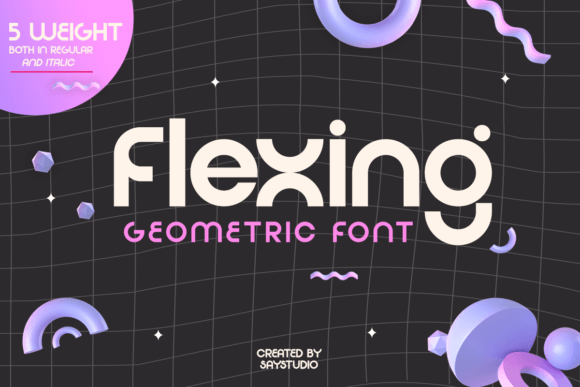
The Perfect Blend of Simplicity and Sophistication: Flexing Font
Have you ever stared at a blank canvas, wondering how to bring your creative vision to life? That moment of pause, where the only thing that matters is the right font to set the tone for your project. For designers, this moment is crucial – it can make or break the entire aesthetic of a piece. That’s where Flexing Font comes in, a geometric sans serif family typeface that’s been making waves in the design world.
With its unique characters and 5 weights (both regular and italic), Flexing Font offers a clean and modern aesthetic that’s perfect for both text and display use. Whether you’re working on branding, advertising, packaging, or website design, this versatile font is sure to deliver. As a designer, you’ll appreciate the flexibility (pun intended) that Flexing Font provides, allowing you to add a touch of sophistication to any project.
Key Features of Flexing Font
- Size: The font family is available in 7 different weights, ranging from Thin to Black, providing flexibility for various design and typographic needs.
- Resolution: Flexing Font is designed for high-resolution displays, making it ideal for use in digital applications, including web, mobile, and desktop interfaces.
- Unique Characteristics: The font features a dynamic, flexible design that adapts to different line heights and font sizes, ensuring optimal readability and visual appeal.
- Language Support: Flexing Font supports a wide range of languages, including Latin, Cyrillic, and Greek scripts, making it suitable for global content and branding applications.
- Kerning and Ligatures: The font includes advanced kerning and ligature tables, ensuring precise spacing and letterform connections for improved readability and aesthetic appeal.
Flexing Font Review
Overall, I’m impressed with Flexing Font’s unique approach to typography. The font’s dynamic flexibility ✨ makes it perfect for designs that need a modern, edgy feel. The bold lines and angular shapes add a touch of sophistication, and the font’s adaptability to different screen sizes is seamless.
- Flexibility: The font’s ability to adjust to various screen sizes and devices is a major plus. It’s perfect for websites, apps, and digital interfaces where text needs to be easily readable on different platforms.
- Variety: Flexing Font comes in a range of weights and styles, allowing designers to choose the perfect look for their project.
However, there are some limitations to consider ⚠️. The font’s bold lines and angular shapes can make it difficult to read at small sizes or in low-light conditions. Additionally, the font’s flexibility can sometimes make it feel inconsistent or unpredictable.
Overall, I’d give Flexing Font 4 out of 5 stars. While it’s not perfect, its unique features and adaptability make it a great choice for modern designs. Just be sure to use it wisely and balance its bold lines with plenty of whitespace and clear typography.
For best results, use Flexing Font in bold or italic styles to emphasize your text and create visual interest.
Use Flexing Font to create eye-catching headlines or titles in your designs, and experiment with different font sizes and styles to add depth and dimension.
Flexing Font is ideal for creating bold, eye-catching headlines and titles in a variety of design projects.
Use Flexing Font in conjunction with other bold or italic fonts to create a visually appealing contrast and add depth to your designs.